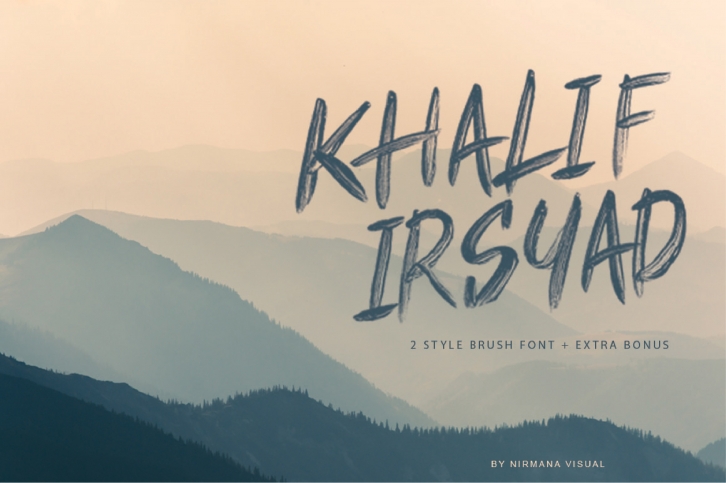
Khalif Irsyad 2 style Plus Extra Bonus Illustration is a beautiful font that was designed by Nirmana Visual. It's a great choice for designers and creatives who need such a font. It was released on September 11, 2018 and the file size is 10.57 MB. Khalif Irsyad 2 style Plus Extra Bonus Illustration may give a more youthful, expressive and casual look to your project. It is a very beautiful, refined, elegant, and high-quality font.